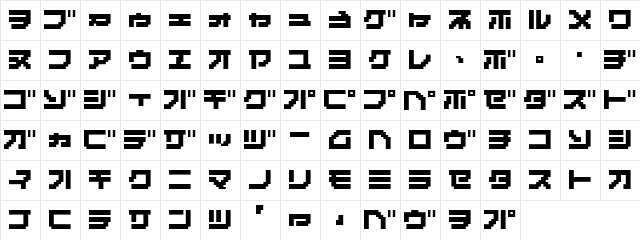
MASSIVE 10 K Font Preview
Design Context for MASSIVE 10 K Typeface
MASSIVE 10 K takes a measured approach to typography — its balanced proportions and neutral character make it a reliable workhorse for both digital and print work.